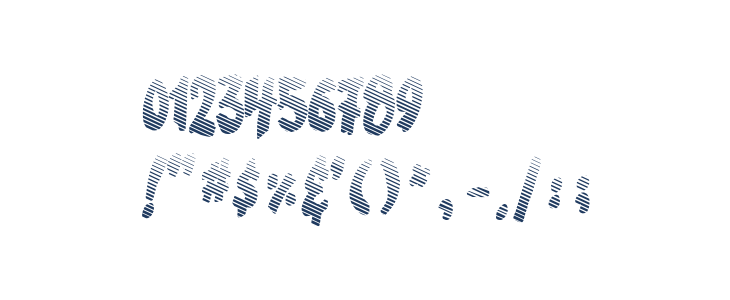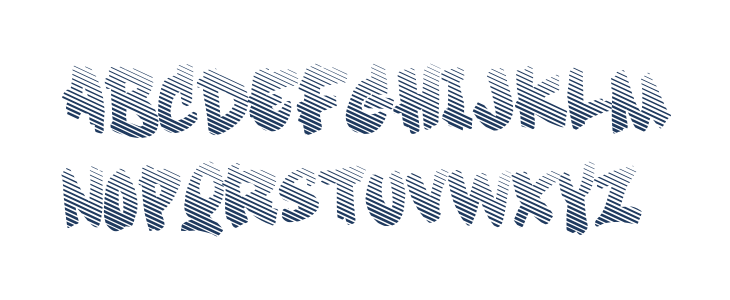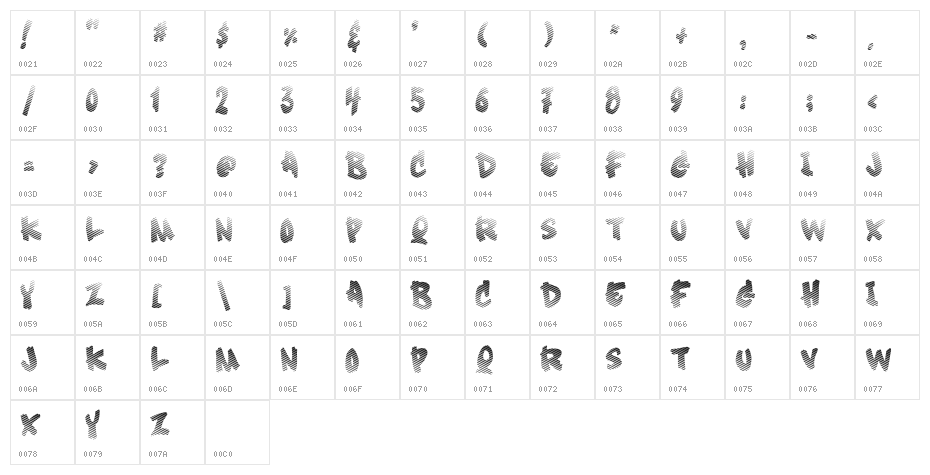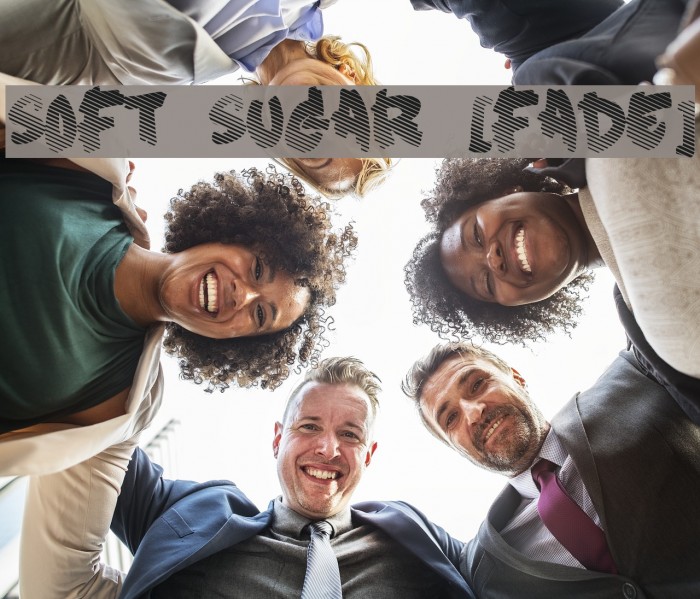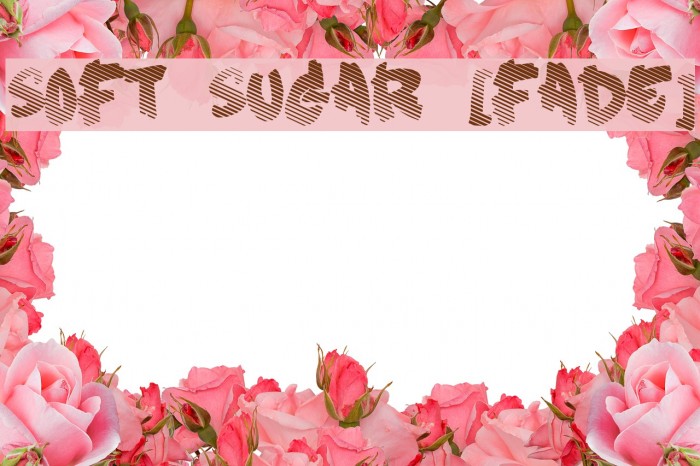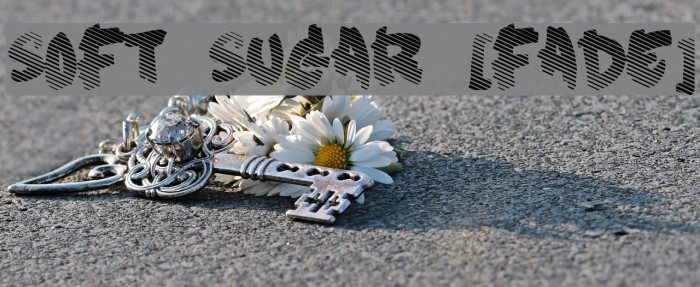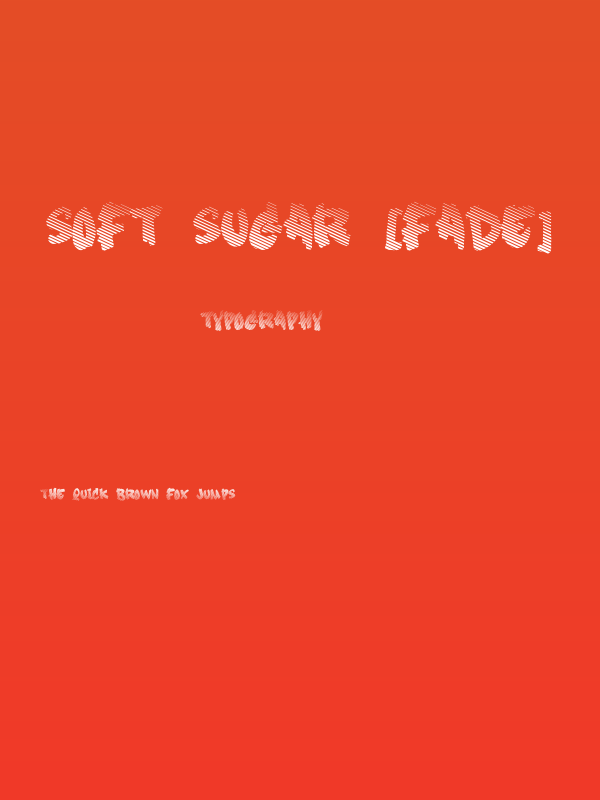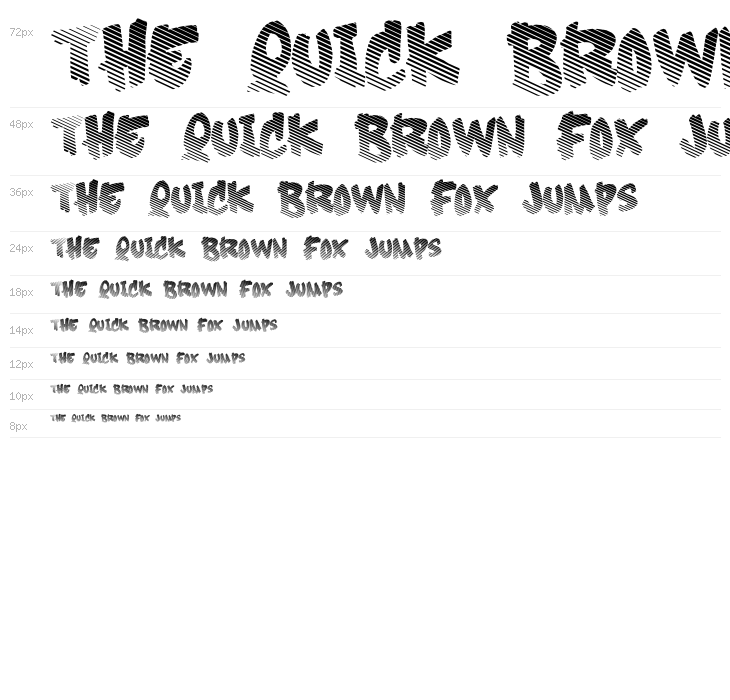
Soft Sugar [fade] Font
This font features a bold, playful design with a unique striped pattern running diagonally through each character. The letters are rounded and have a slightly irregular, hand-drawn appearance, giving them a casual and artistic feel. The uppercase and lowercase letters maintain a consistent style, while the numbers and special characters complement the overall look. The font's distinct style makes it stand out, making it ideal for creative projects that require a fun and engaging aesthetic.
Proposed ProjectsIdeal for posters, children's book covers, playful branding, and creative social media graphics.